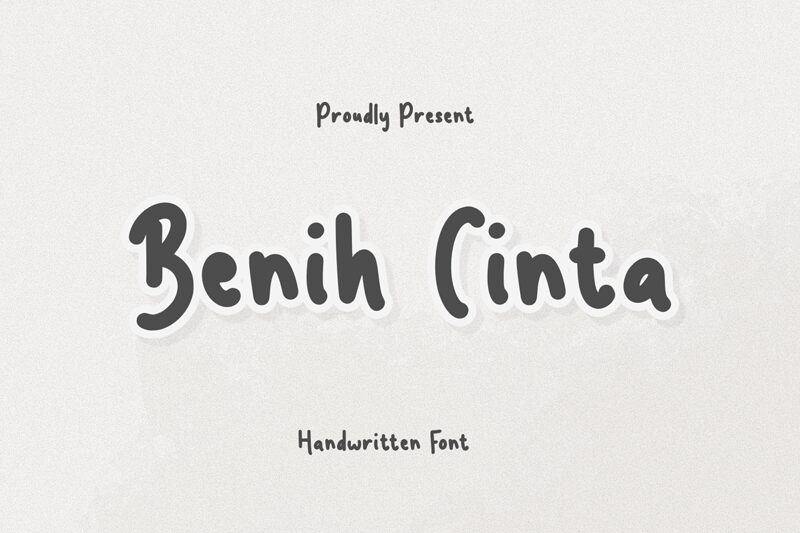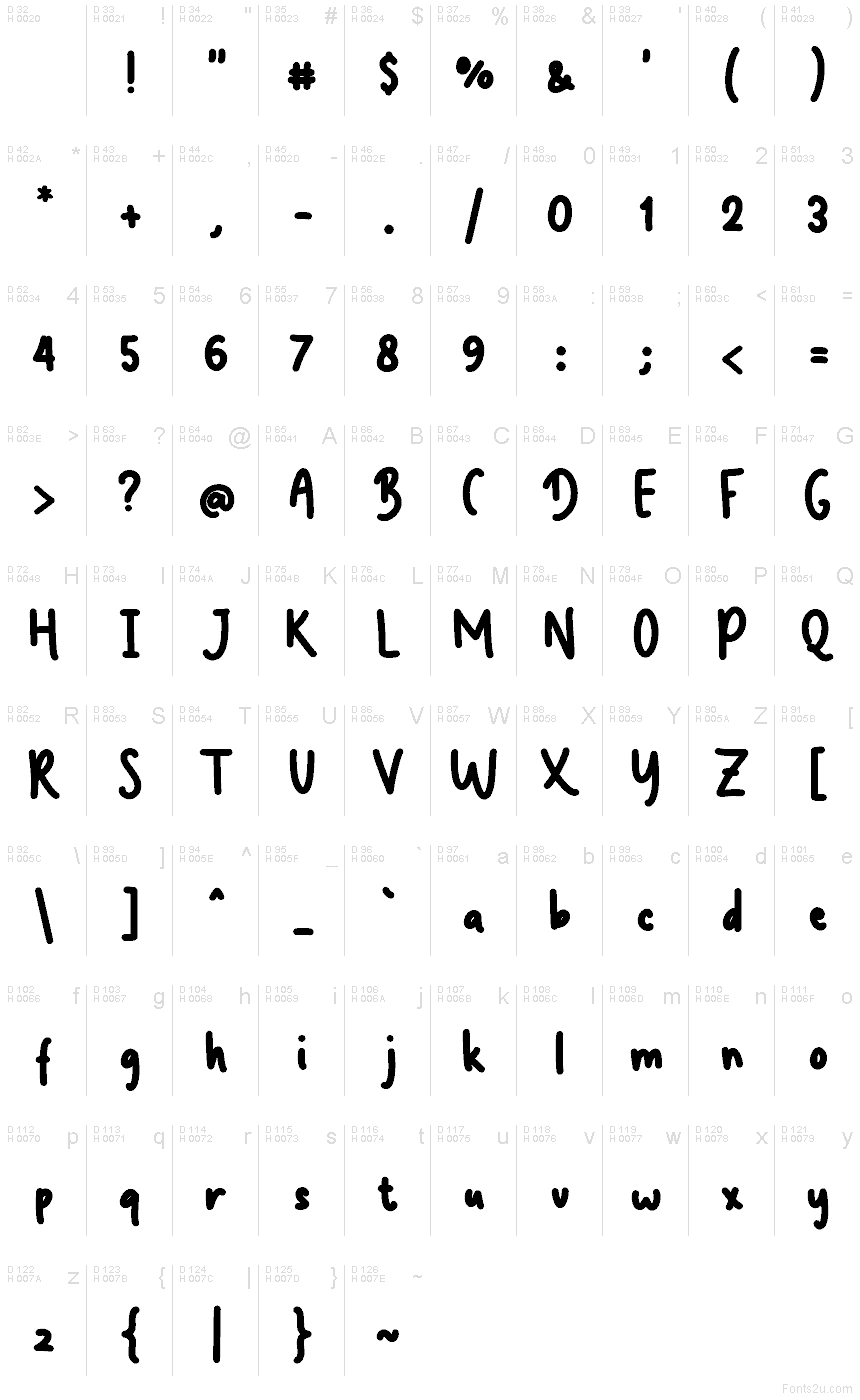
BenihCinta font by Makashi is a free handwritten font with a bold, inky charm that feels like it was drawn with a thick marker on smooth paper. Its rounded shapes, chubby curves, and steady rhythm give every word a warm, friendly presence that’s easy to read even at smaller sizes. The letters connect visually without actually joining, so you get that casual, personal vibe without sacrificing clarity.
Using BenihCinta, you can bring a playful touch to kids’ book covers, classroom posters, social media graphics, bakery branding, greeting cards, stickers, and product packaging. This free font shines when you let it take center stage, then pair it with a clean sans-serif for small supporting text to keep everything balanced and legible.